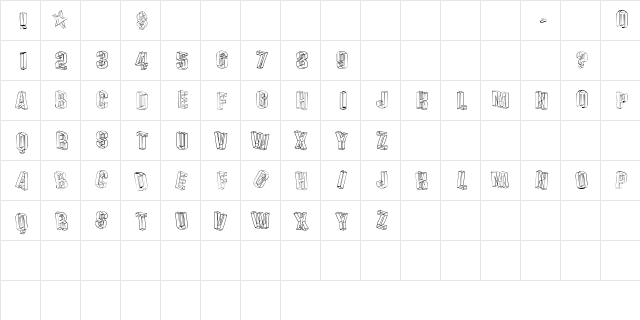
DreideeSketches Regular Font Preview
DreideeSketches Regular
Design Context for DreideeSketches Typeface
DreideeSketches is a composed and adaptable typeface that performs quietly and consistently across a wide range of design contexts.